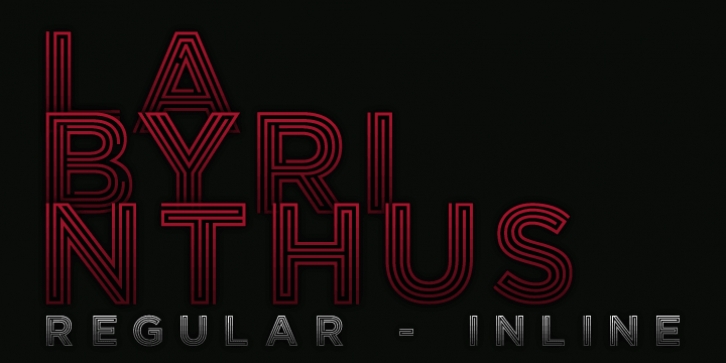
LABYRINTHUS is a display sans font family. This typeface has two styles and was published by Cerri Antonio.
LABYRITHUS regular and inline, is a decorative font, it works well as an identity logo type, poster and 3d works. Labyrinthus inline, it has all the glyphs already cut, and ready to create vector and 3d compositions.